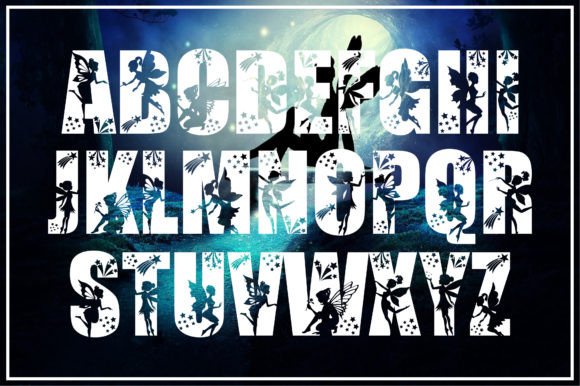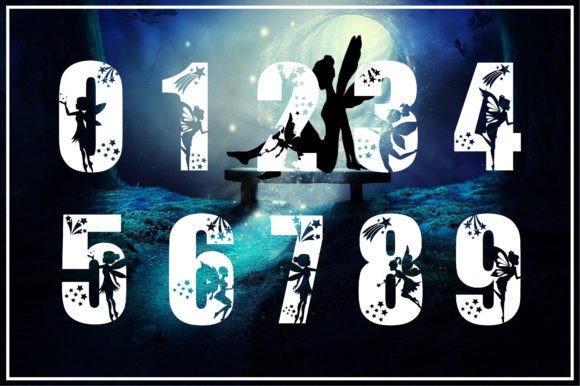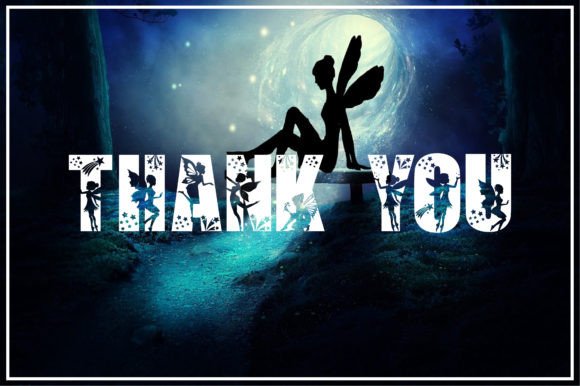
The Magical World of Fairy Font: A Designer’s Delight
I’ll never forget the time I was working on a whimsical craft project, pouring my heart and soul into it, but struggling to find the perfect font to match its playful vibe. That’s when I stumbled upon Fairy Font, and it was love at first sight! ✨ This dramatic decorative font has been a game-changer for my designs, and I’m excited to share its magic with you.
An Honest Review of Fairy Font
- ✨ Elegant and sophisticated, yet playful and whimsical
- ✅ Perfectly suitable for a wide range of design and crafty projects
- 💫 Beautifully crafted with attention to detail
- 🎉 Highly versatile and adaptable to different styles and themes
While Fairy Font is an amazing addition to any design, there are a few things to keep in mind: 🤔
- ⚠️ Some characters may be a bit too ornate for very small font sizes
- ⚠️ Limited availability of certain special characters or glyphs
The Backstory of Fairy Font
Fairy Font was designed with the intention of capturing the essence of whimsy and wonder. Its creator was inspired by the magical world of fantasy and folklore, and aimed to craft a font that would transport users to a world of enchantment. 🌙
Q: What is Fairy Font best used for?
A: Fairy Font is perfect for a wide range of design and crafty projects, from invitations and greeting cards to posters and social media graphics.